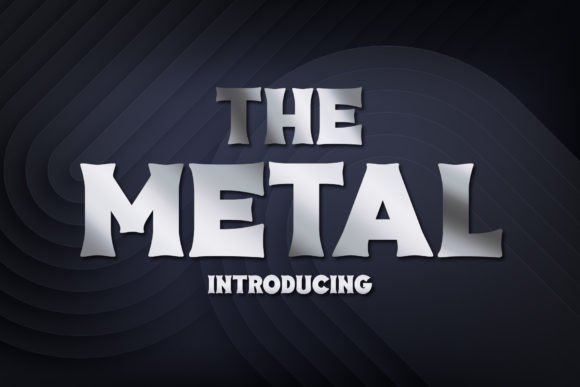
Dive into the world of timeless elegance with The Metal Font, a mesmerizing slab serif typeface that exudes sophistication and vintage charm. Crafted with meticulous attention to detail by Fox7, this font family embodies the essence of classic design, transporting you to an era of vintage aesthetics and timeless allure.
With its strong and distinctive serifs, The Metal Font commands attention, making it an ideal choice for logos that demand impact and headlines that leave a lasting impression. Its elegant curves and graceful lines add a touch of refinement to any project, whether it's a book or movie title design, fashion brand identity, or magazine layout.
Step into a world of creative possibilities with The Metal Font. Let your imagination soar as you craft captivating quotes and lettering that resonate with your audience. This font family is a true gem for designers and artists seeking to add a touch of elegance and nostalgia to their work.